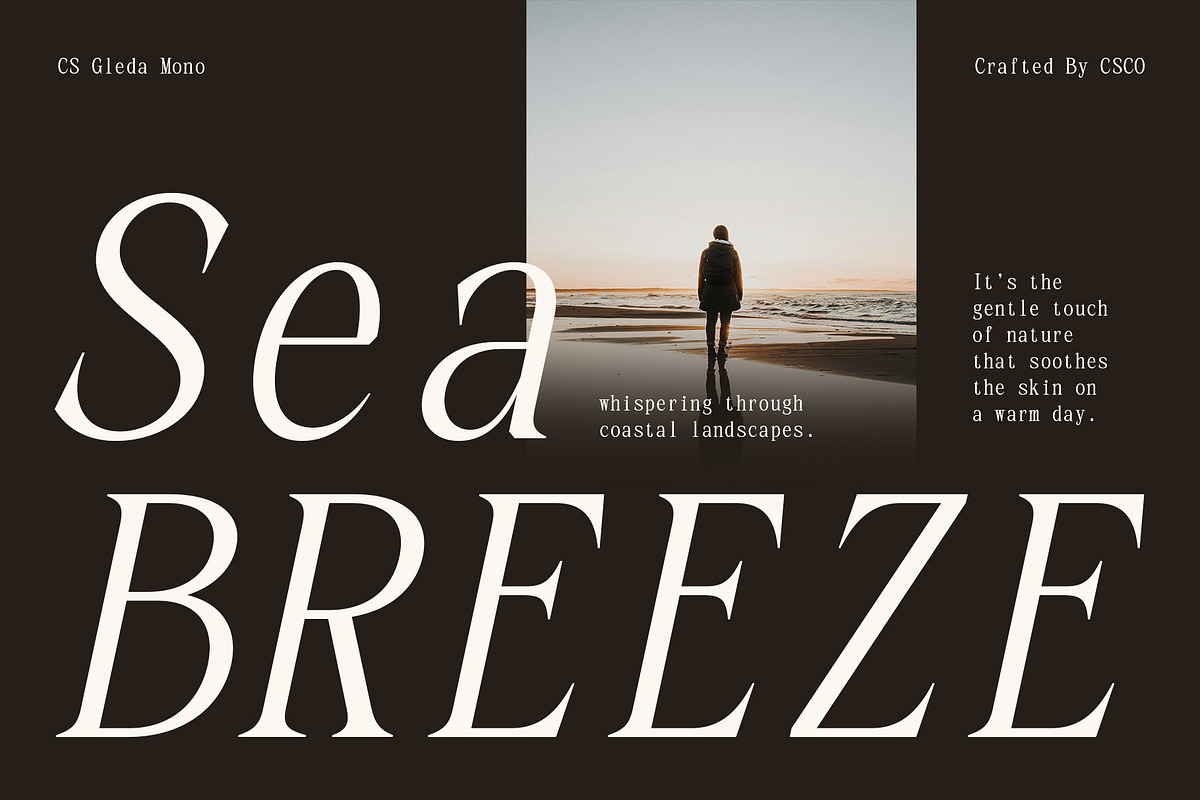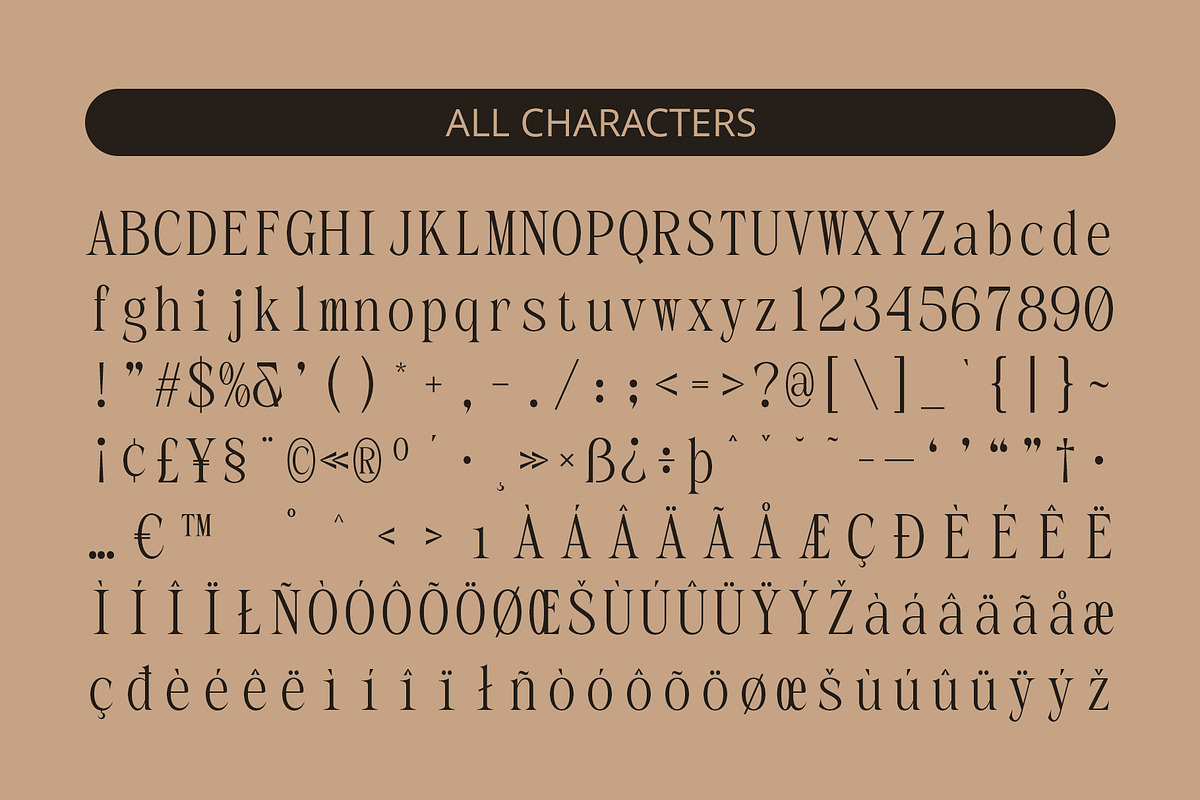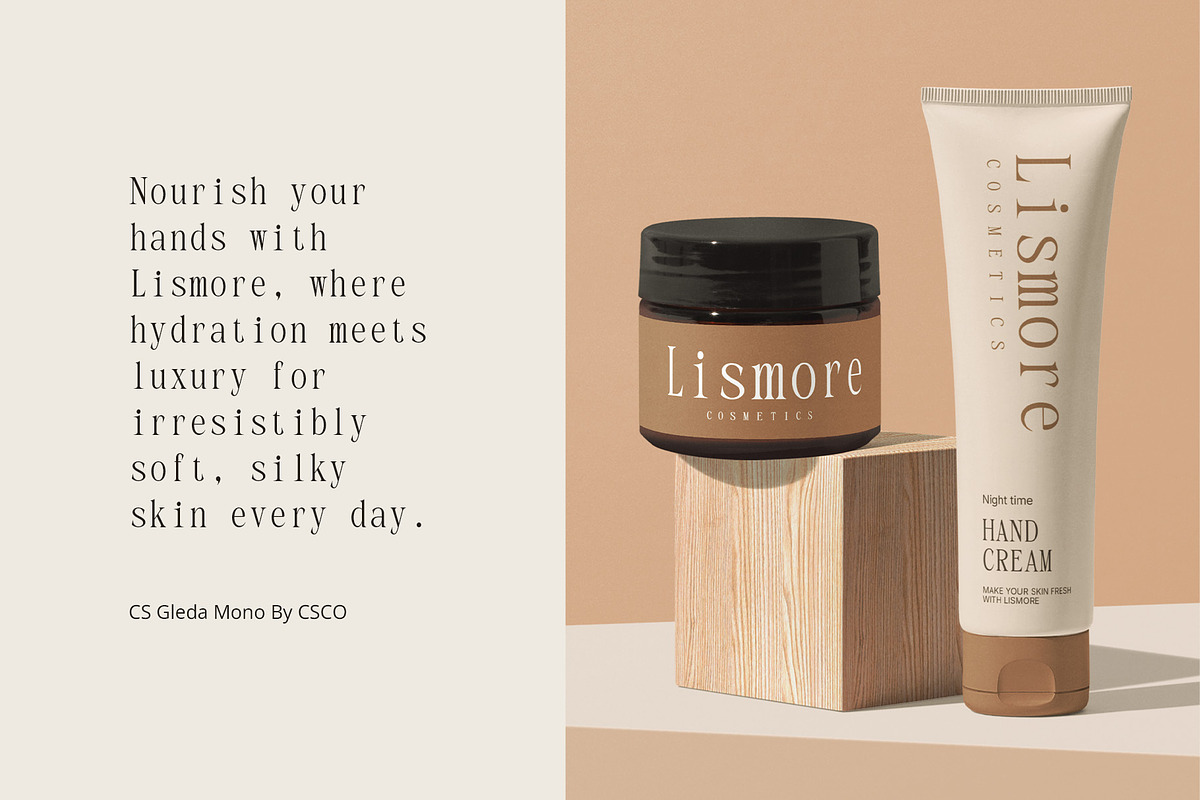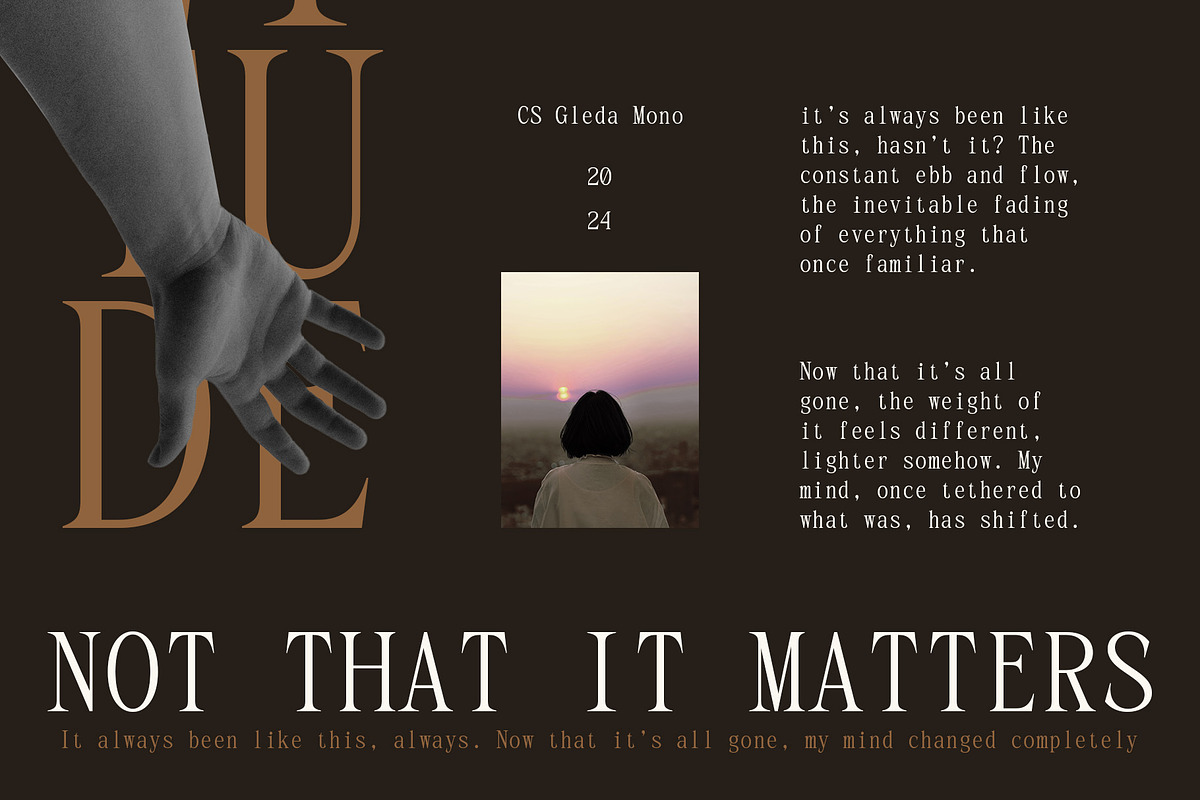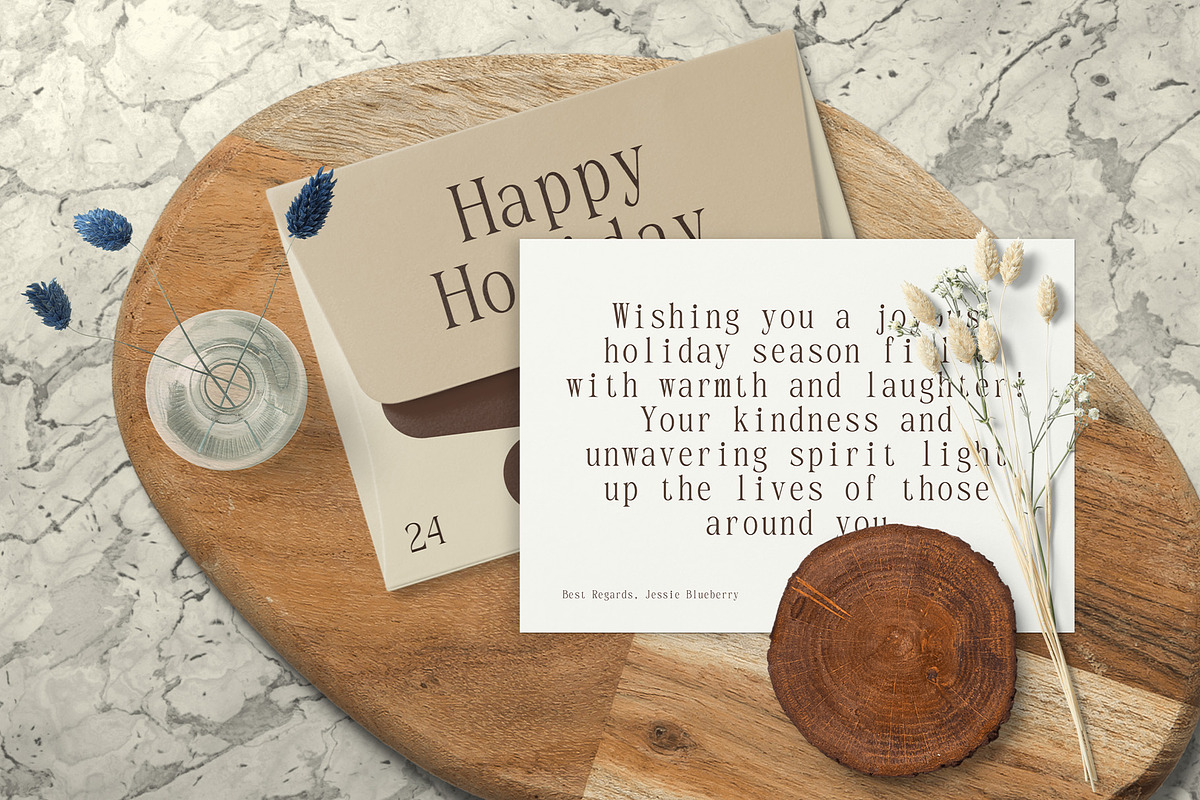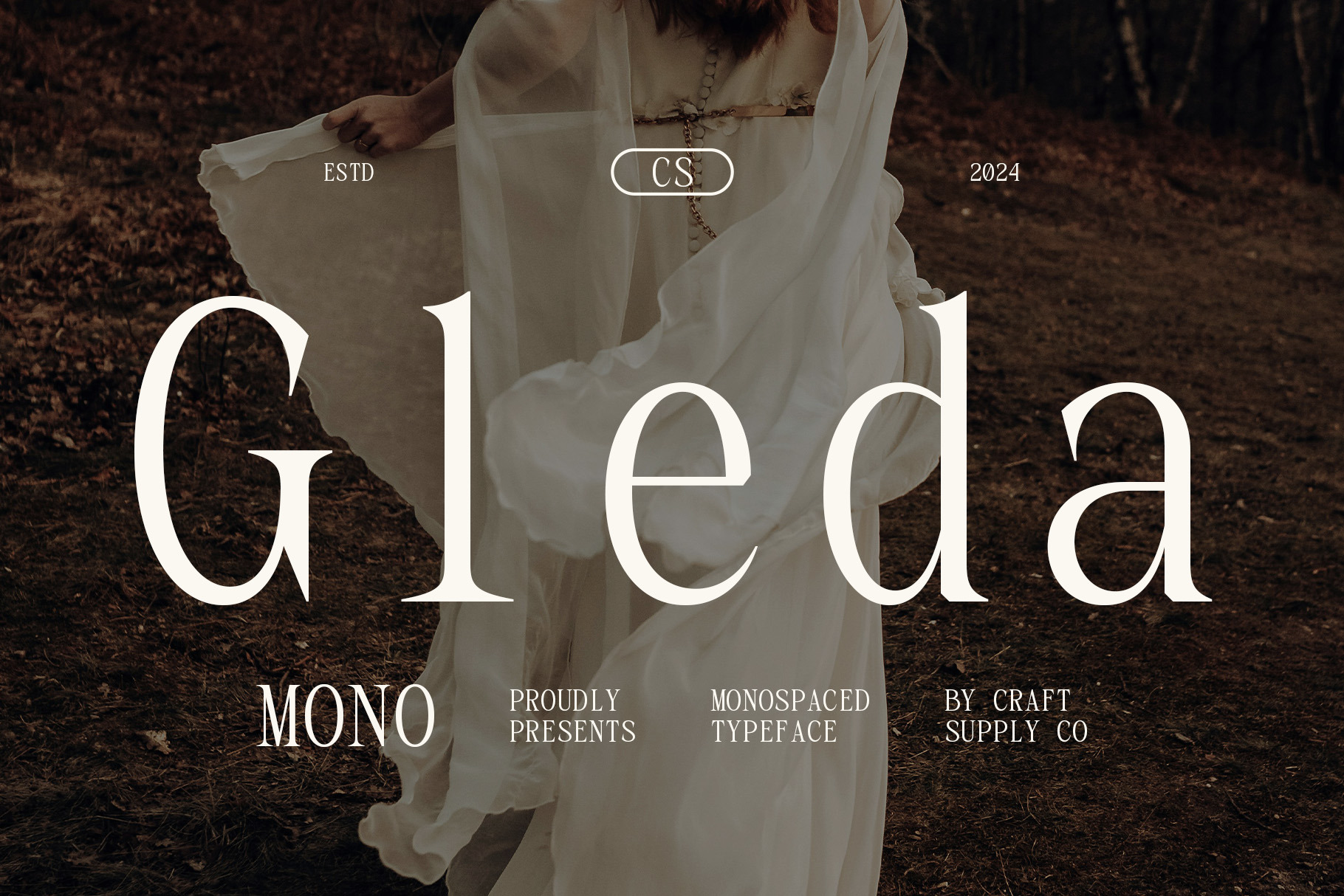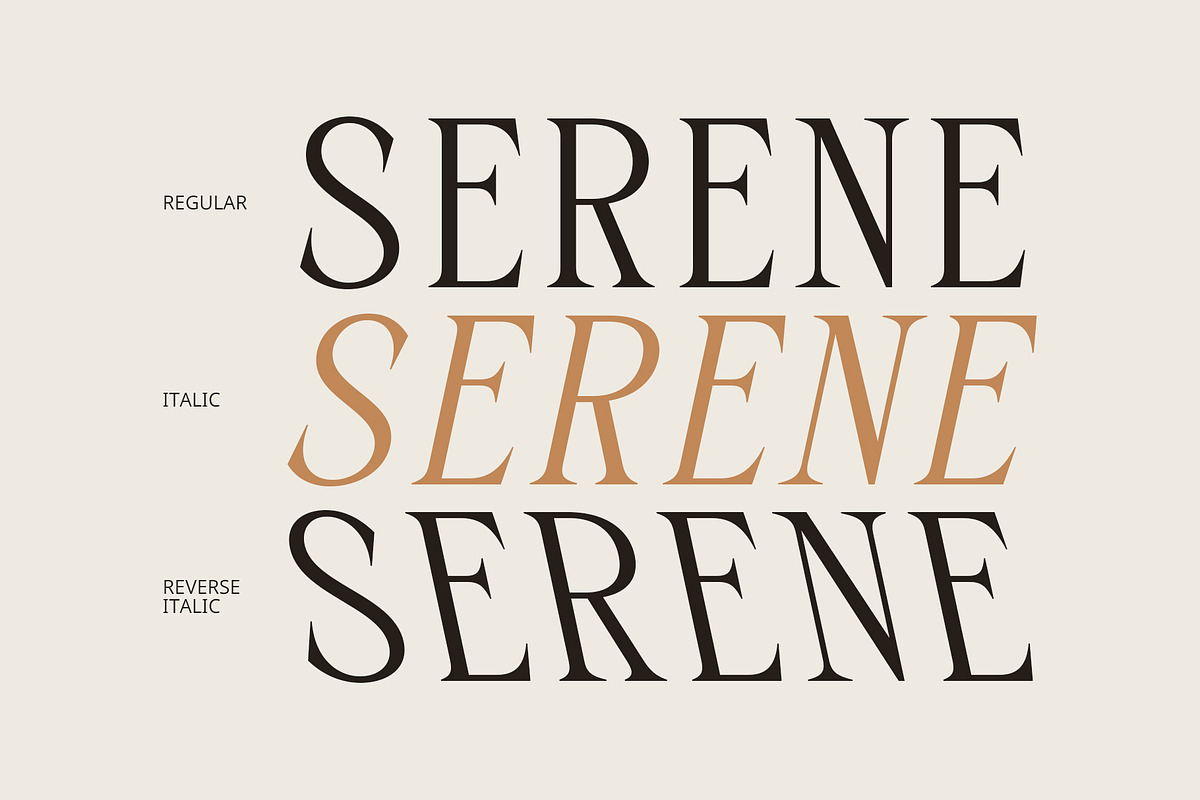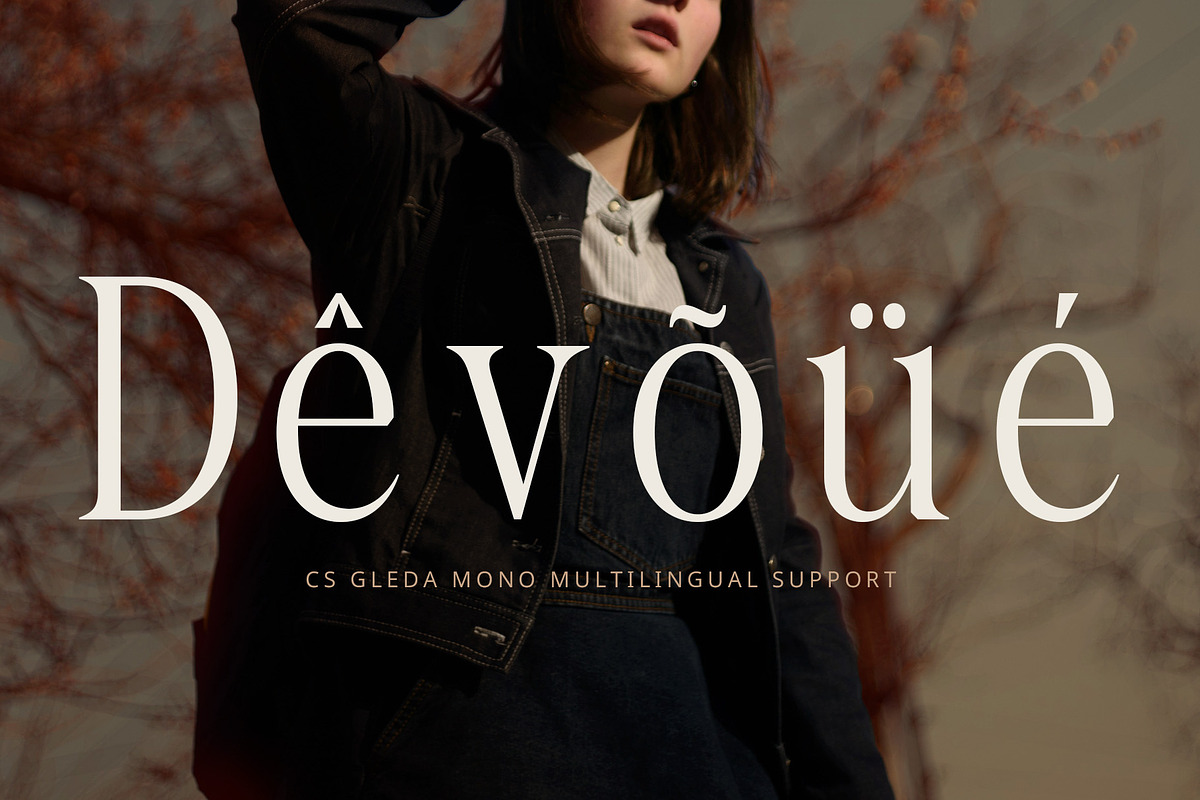
CS Gleda Mono – Monospaced Font
CS Gleda Monospaced Font: Modern Elegance in Monospaced Design
Contemporary Monospaced Serif Font CS Gleda Mono is a striking modern serif font that marries contemporary design with traditional elements, offering a unique monospaced style that elevates any project. Each character in this font occupies the same width, ensuring optimal alignment and readability, making it an ideal choice for both technical and aesthetic applications.
Balanced Blend of Tradition and Modernity The monospaced characteristic of CS Gleda Mono provides a structured and organized appearance, perfect for conveying information clearly. Its smooth lines and elegant curves create a sophisticated look, honoring the classic aesthetic of serifs while seamlessly integrating modern sensibilities. This blend of tradition and modernity makes it versatile for a variety of design contexts.
Ideal for Professional Applications Whether used in programming environments or formal documents, CS Gleda Mono excels in professional settings. Its clarity and uniformity aid in maintaining an efficient workflow, while its refined design enhances the overall visual appeal of the text. The font is particularly suitable for applications such as websites, technical documentation, branding materials, and reports, where professionalism is paramount.